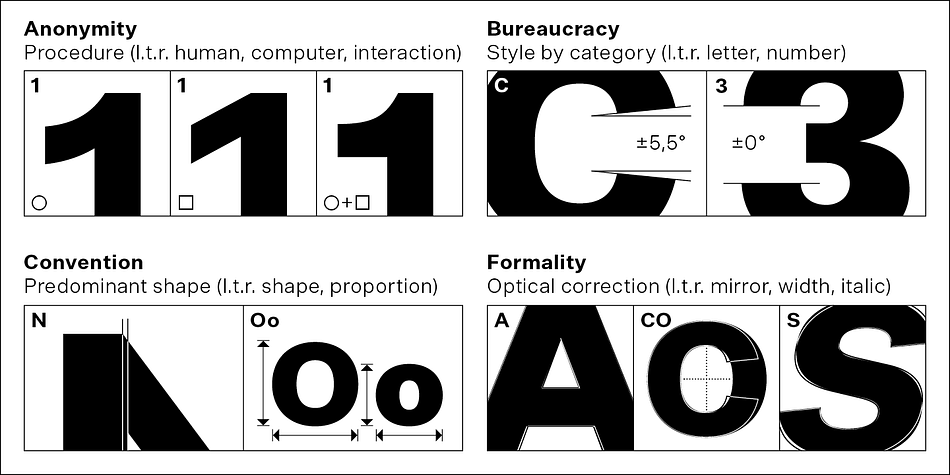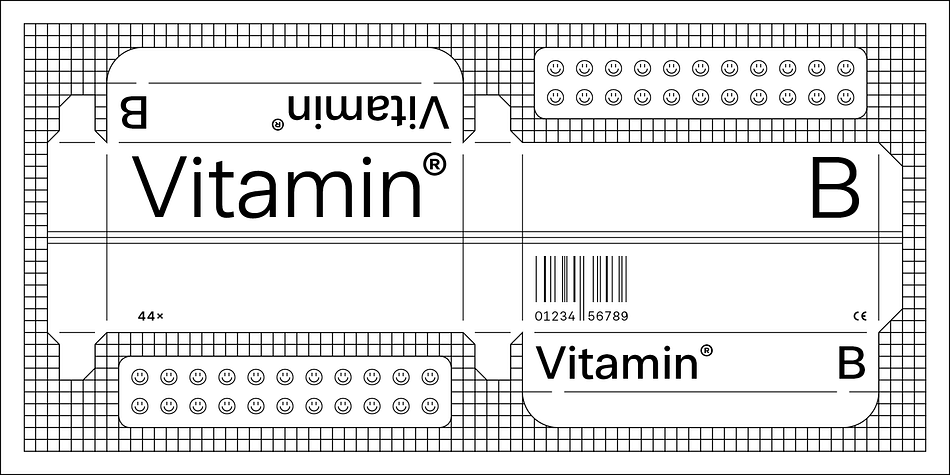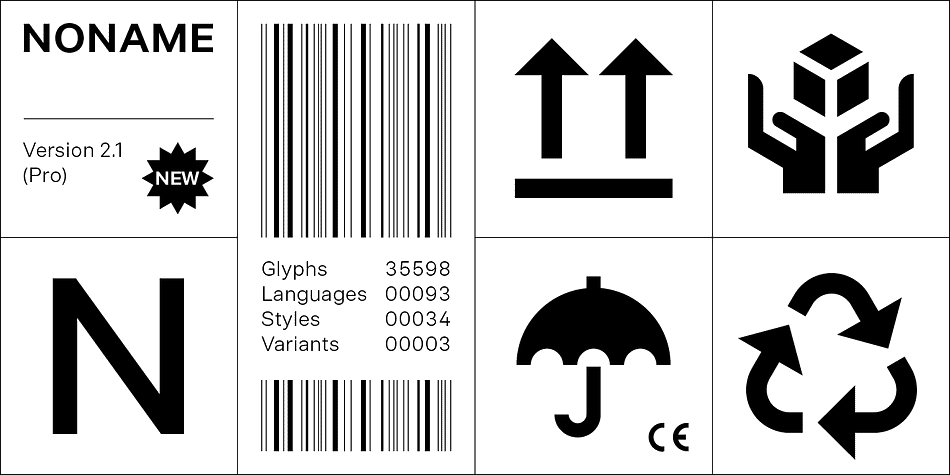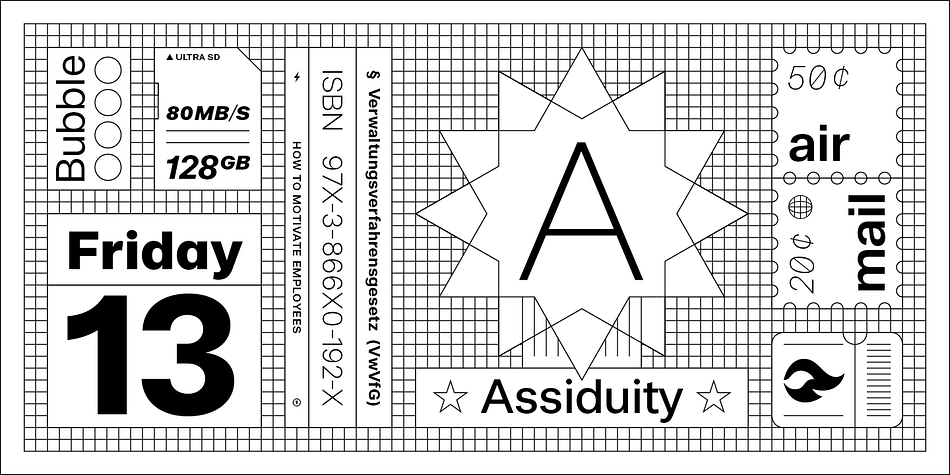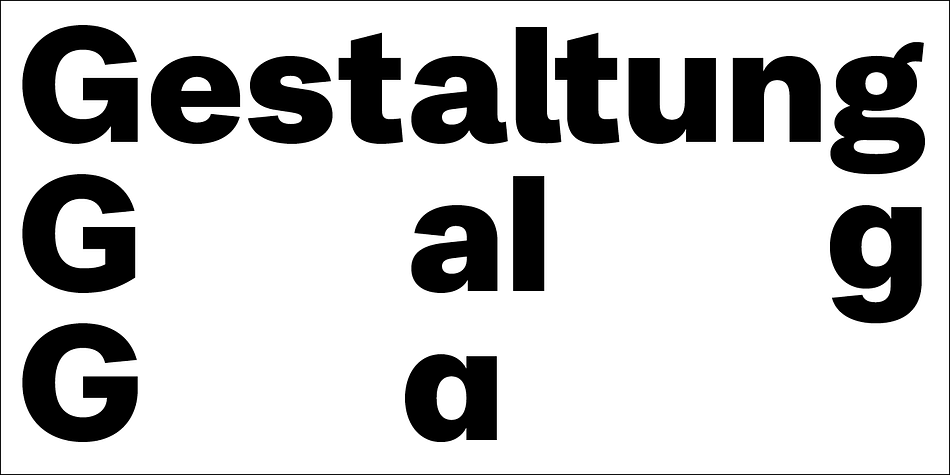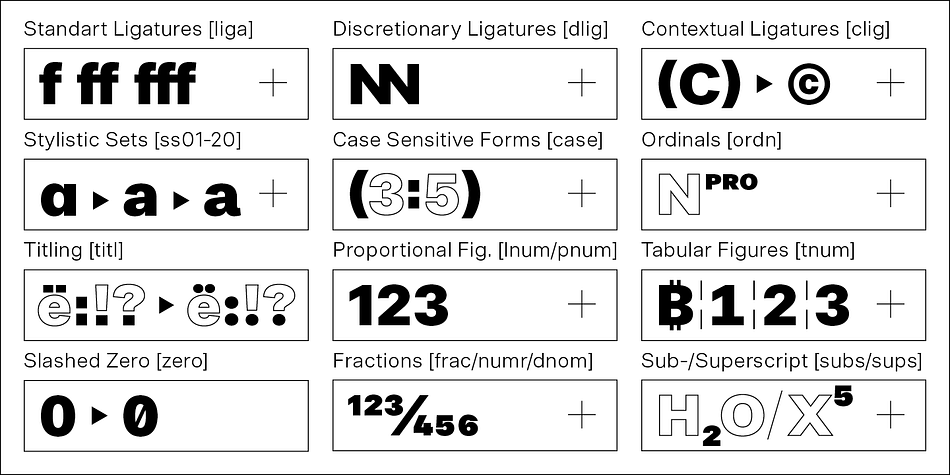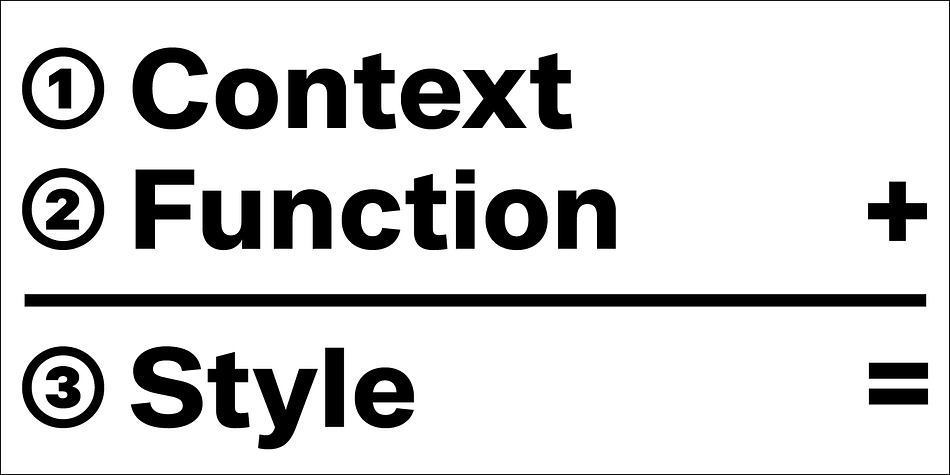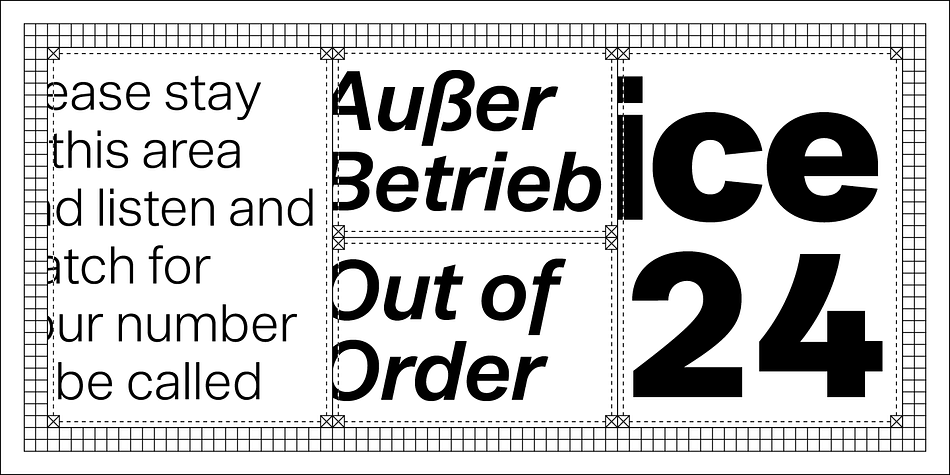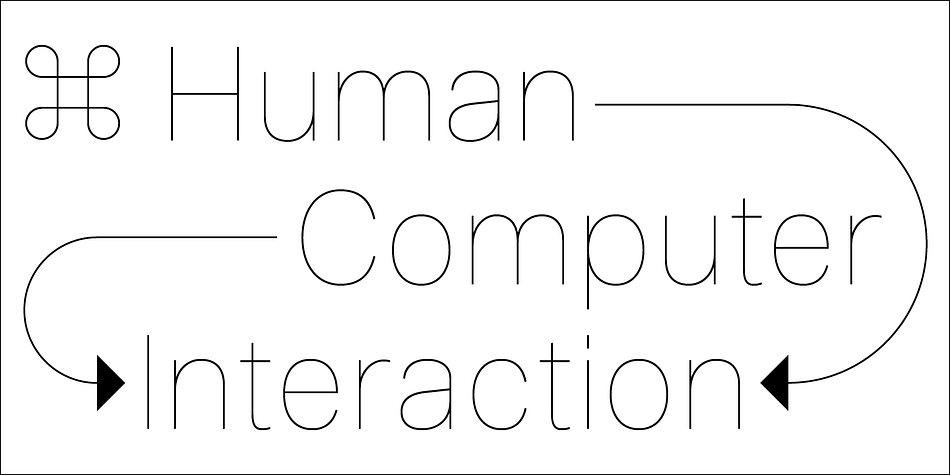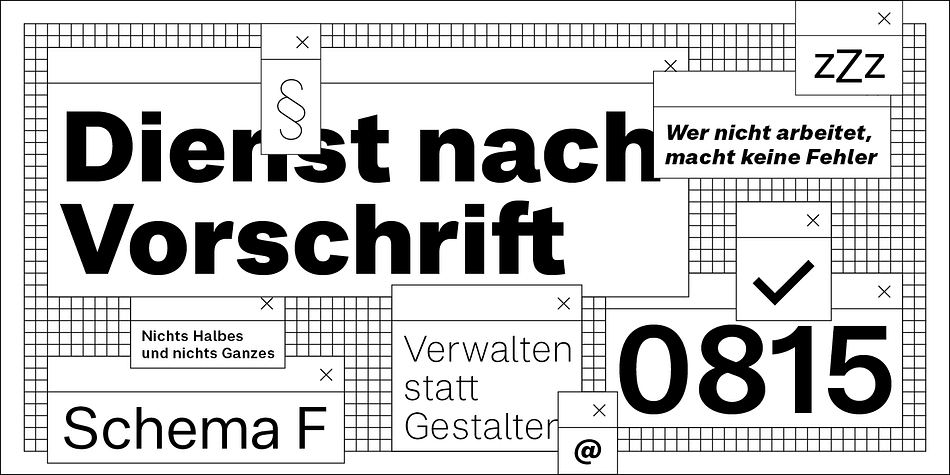
BB Noname™ (Pro) is a sans serif font family. This typeface has thirty-four styles and was published by Bold Studio.
BB Noname™ (Pro) is intended to imply the appearance of a conventional typeface in a contemporary context. Due to the frequent use in the public service (among other things), the style associates a supposedly objective face.
The style is characterized by the proportions, the contradiction of the apparently perfect reduction and the retention of chirographic elements. In addition, the rapid further development of the input devices has meant that existing character sets have been added again and again, regardless of style and technical requirements.
With this work, the properties were analyzed, the characteristic features highlighted and summarized in a complete typesetting: Anonymity (procedure), bureaucracy (style by category), convention (shape) and formality (optical corrections).
● 3 Variants: Human, Computer, Interaction
● 20 Stylistic-Sets
● 34 Styles
● 39 OpenType features
● 93 Languages Support